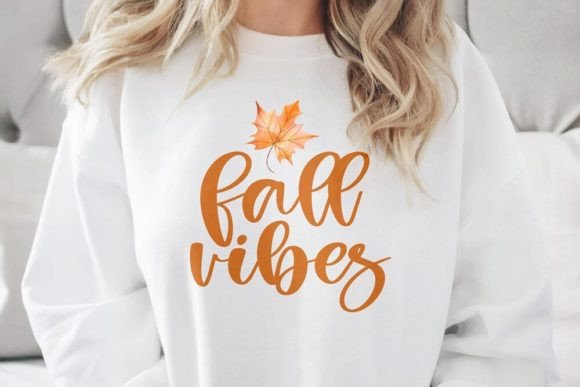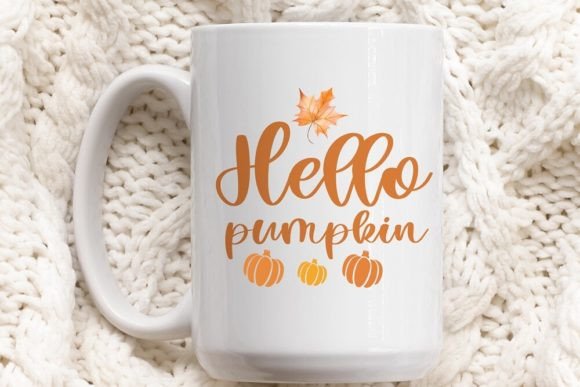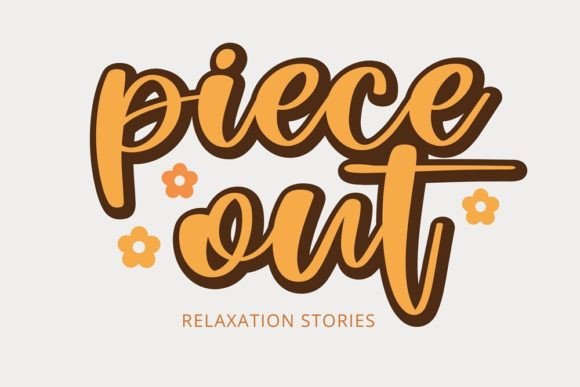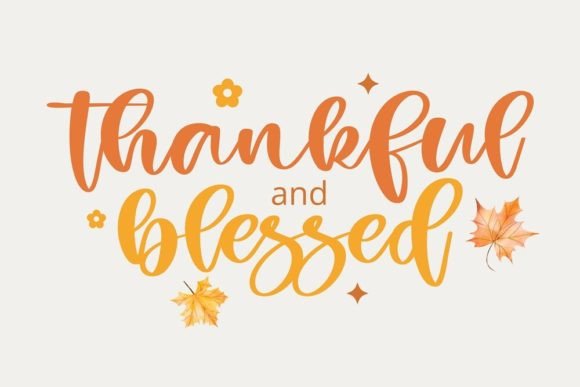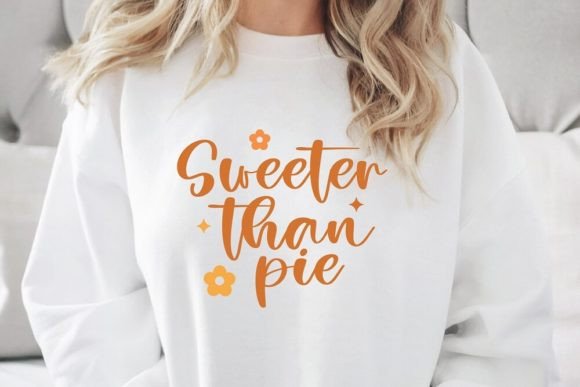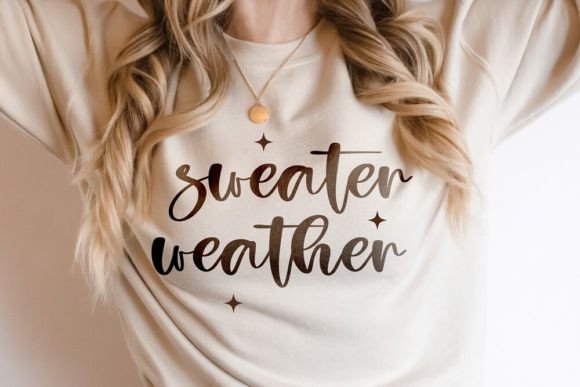
The Autumn Lovers Font: A Sweet and Cute Handwritten Delight
As a designer, I’ve had my fair share of font struggles. I recall working on a wedding invitation project, scrolling through font after font, trying to find the perfect fit. The project required a sweet, yet elegant feel, but nothing seemed quite right. That was until I stumbled upon the Autumn Lovers font. It was love at first sight! 💕 In this article, I’ll share my experience with this beautiful font, its features, and how to make the most of it in various design platforms.
• ✨ Sweet and Cute Aesthetic: Autumn Lovers has an incredibly versatile style that can be used for a wide range of projects, from wedding invitations to social media posts.
• ✅ Handwritten Charm: The font’s handwritten feel adds a personal touch to any design, making it perfect for crafts, stationery, and more.
• 💫 Easy to Read: Despite its playful nature, Autumn Lovers remains clear and easy to read, even in smaller sizes.
While Autumn Lovers is an amazing font, there are a few things to keep in mind: 🤔
• ⚠️ Limited Use in All Caps: While the font looks great in uppercase, it’s not as visually appealing as it is in mixed case or lowercase.
• ⚠️ Glyph Limitations: Some advanced OpenType features might not work in all design platforms or software.
3. Experiment with OpenType features like ligatures and stylistic alternates to add more flair to your text.
3. Explore Glyphs and OpenType features to access alternate characters and create unique designs.
The story behind Autumn Lovers is one of passion and love. The font was created by a designer who wanted to capture the essence of fall in a beautiful, handwritten style. Inspired by the changing leaves and cozy atmosphere of the season, Autumn Lovers was born. It’s a font that evokes feelings of warmth and comfort, perfect for designs that require a personal touch.
Q: What type of projects is Autumn Lovers best suited for?
A: Autumn Lovers is incredibly versatile and can be used for wedding invitations, stationery, social media posts, blogs, and more!
Q: Does Autumn Lovers support OpenType features?
A: Yes, Autumn Lovers supports various OpenType features, including ligatures and stylistic alternates, which can be accessed in compatible design platforms.
Q: Is Autumn Lovers suitable for body text?
A: While Autumn Lovers is beautiful, it’s best used for headings and short paragraphs due to its decorative nature. For longer body text, a more traditional font might be more suitable.